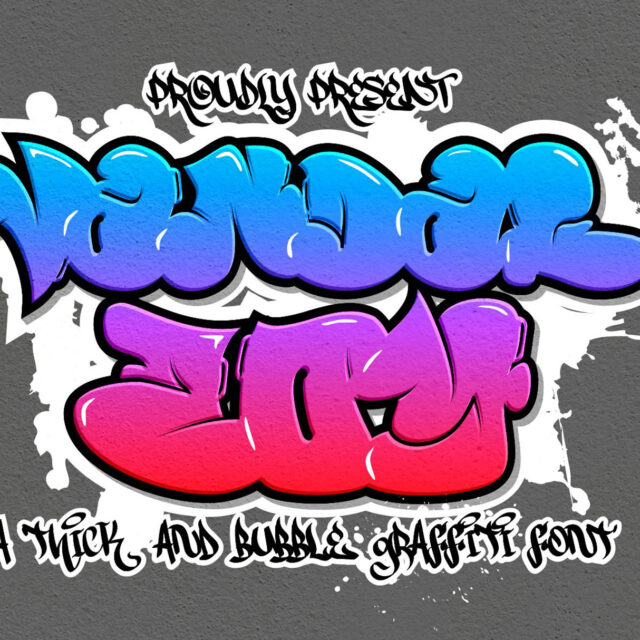
About Vandal Zoy
“Vandal Zoy” is a graffiti bubble font with a bold and thick style. Its rounded letterforms and thick strokes give a playful and urban feel to your designs. Perfect for posters, logos, and street art-inspired projects, this font adds energy and captures the essence of graffiti culture. Unleash your creativity with “Vandal Zoy” and make a rebellious statement with your typography.